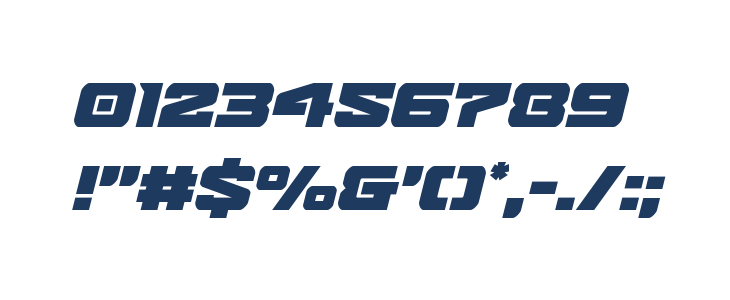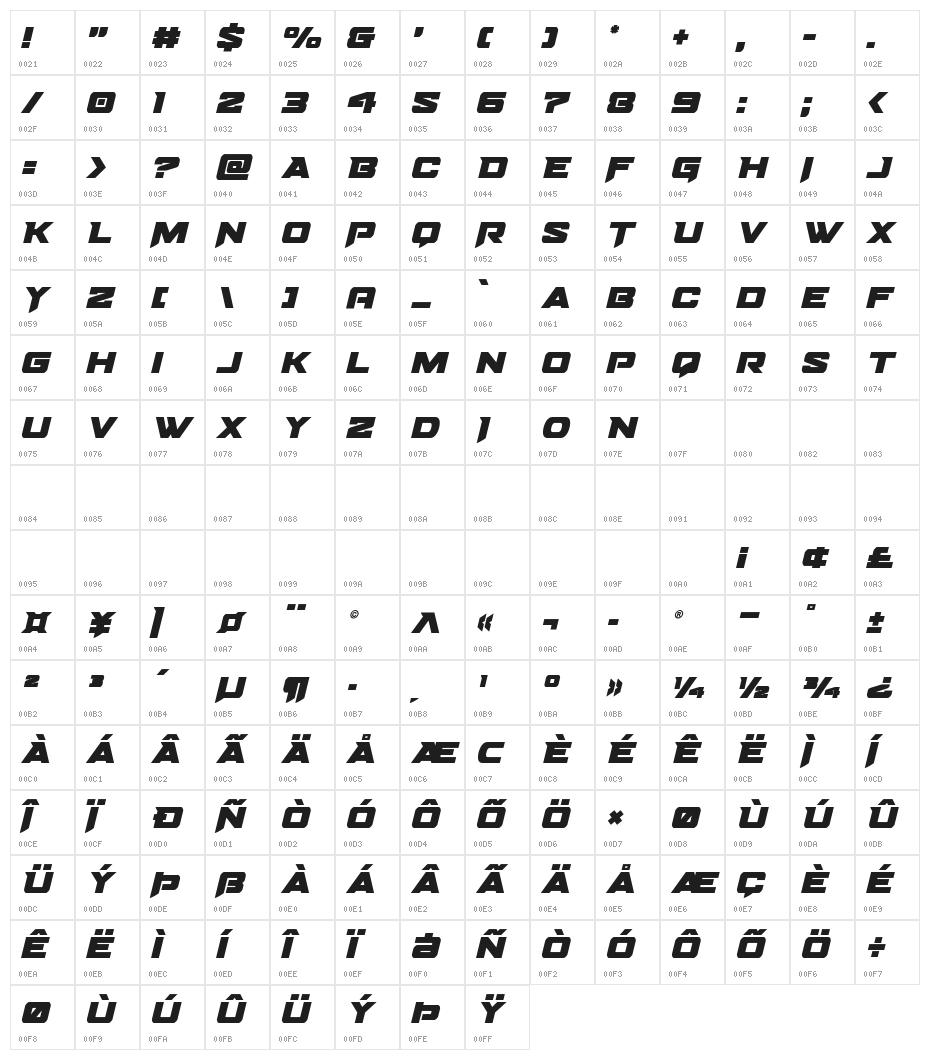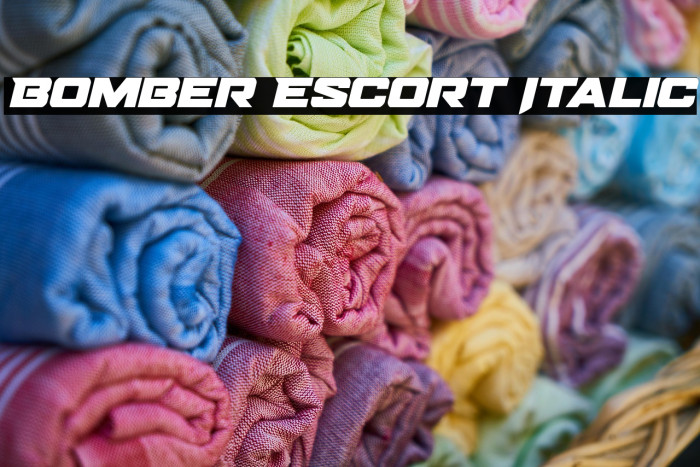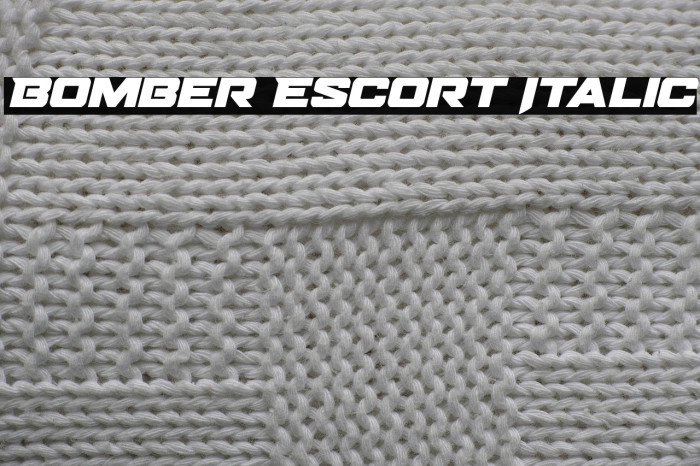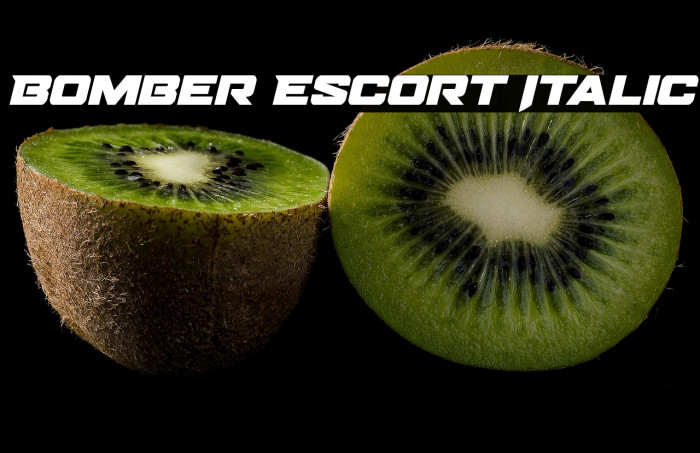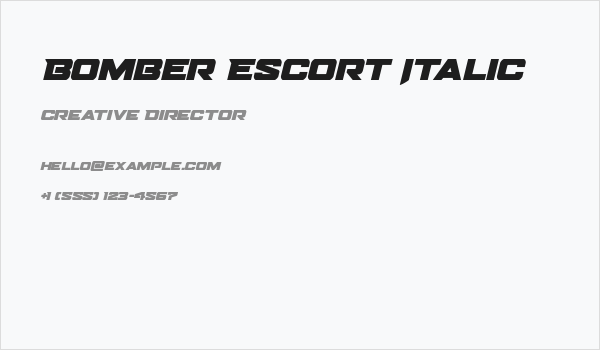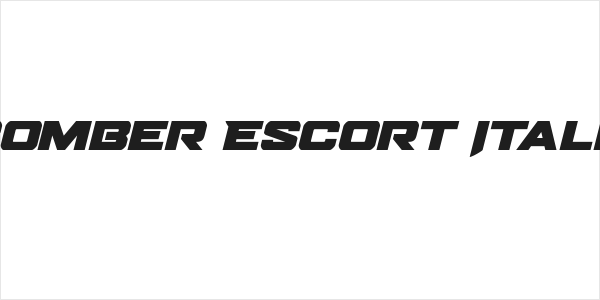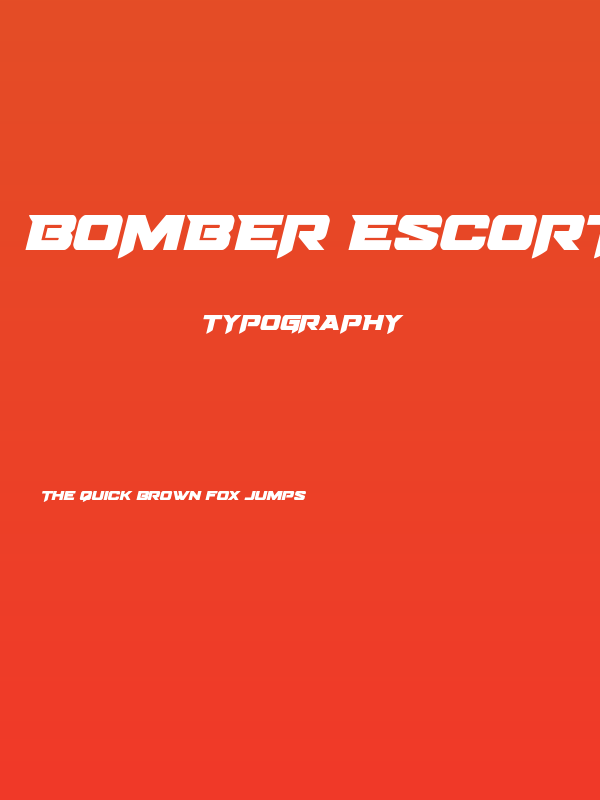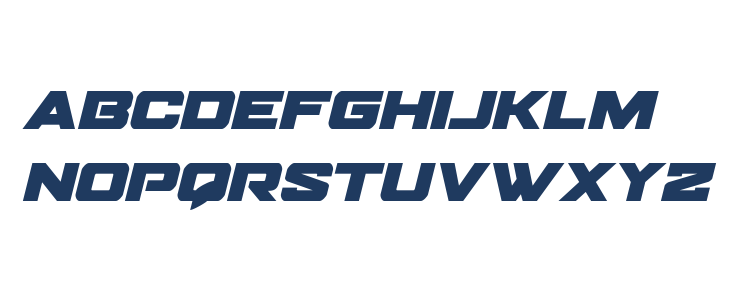
Bomber Escort Italic Font
Bomber Escort Italic Description
This font features a bold, italicized style with a futuristic and dynamic appearance. The characters are angular and sharp, giving a sense of movement and speed. The uppercase and lowercase letters maintain a consistent design, with a slight slant that enhances the italic effect. The numbers and special characters are designed to match the bold and edgy aesthetic, making them stand out. The overall design is cohesive, with a strong emphasis on geometric shapes and clean lines, suitable for projects that require a modern and impactful look.
| Proposed Projects | Ideal for sports branding, video game titles, automotive advertisements, and tech-related projects. |